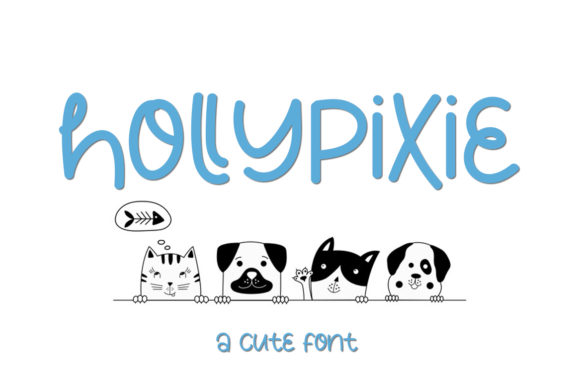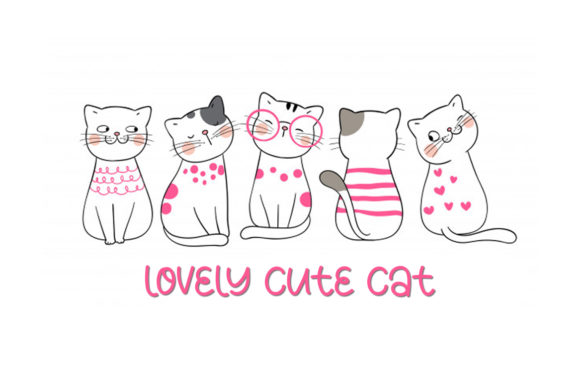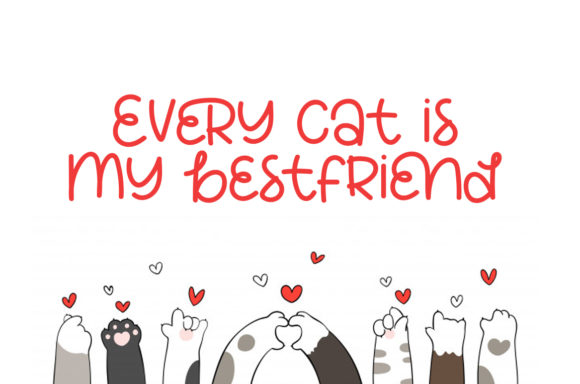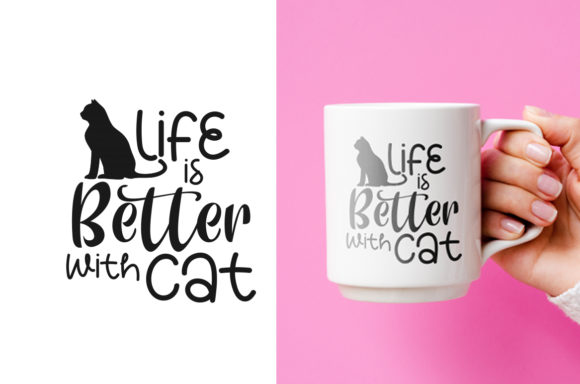
Holly Pixie Font
About Holly Pixie Font
Holly Pixie is a cute and casual handwritten font with an incredibly friendly feel. Whether you’re looking for fonts for Instagram or calligraphy scripts for DIY projects, this handwritten font will turn any creative idea into a true piece of art!